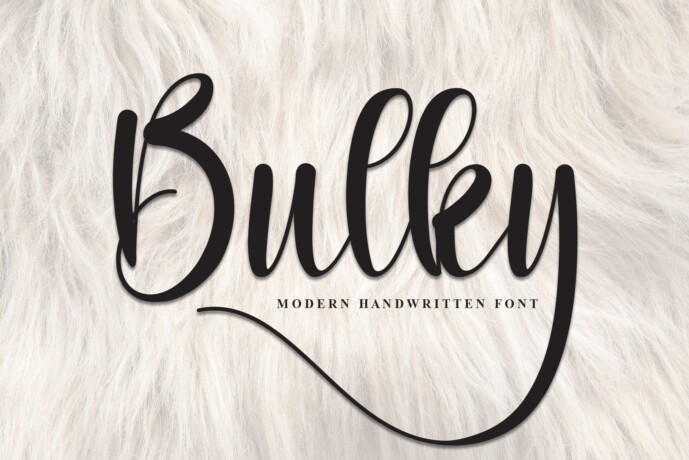
Bulky Font
Embark on a journey of creativity with our mesmerizing display font, minutely crafted to showcase spectacular intricacy. This font exudes a vibrant, lively spirit, seamlessly woven within its calming charm, creating a captivating aura that can’t be ignored. Designed ingeniously with a touch of sophistication, it perfectly highlights the classy aura of meticulously crafted wedding invitations, enchanting greeting cards, and so much more.
Enhance your artistic endeavors with the unique distinctiveness of this incomparable font. Its singular charisma and signature panache have the potential to revolutionize your creative path, ushering in a transformative shift in your artistic expression. Truly, this font is a gem amongst stones.